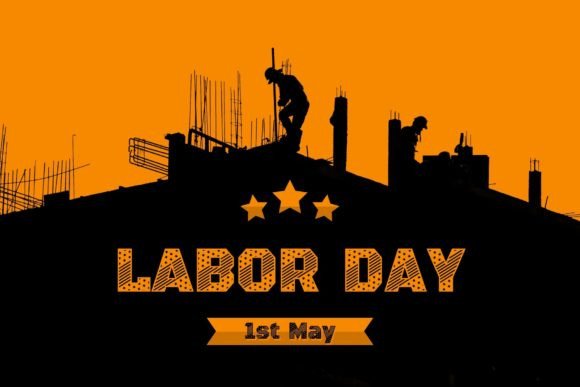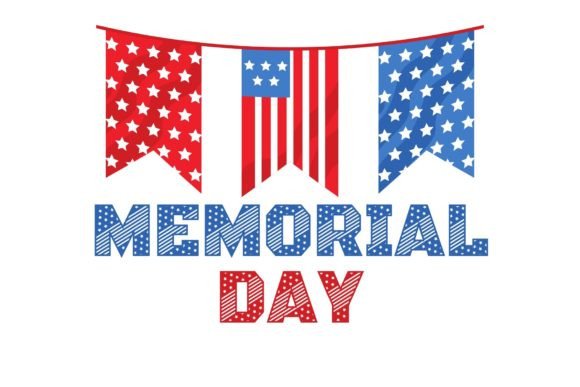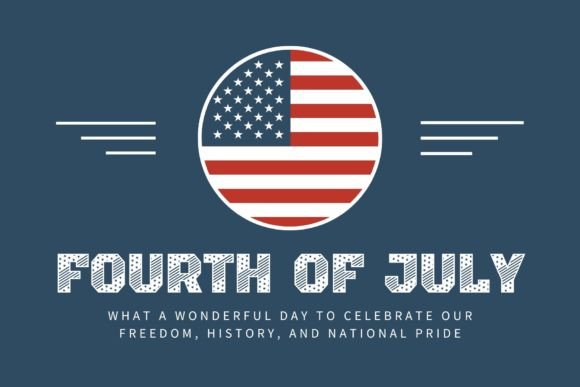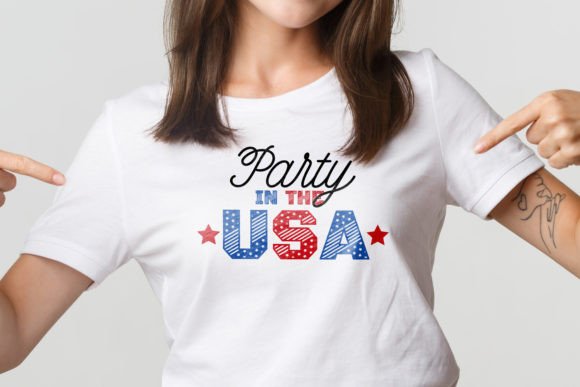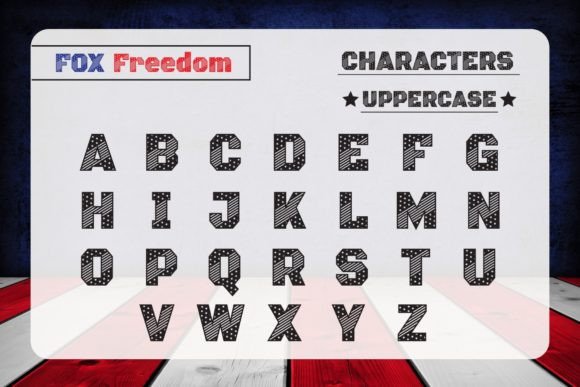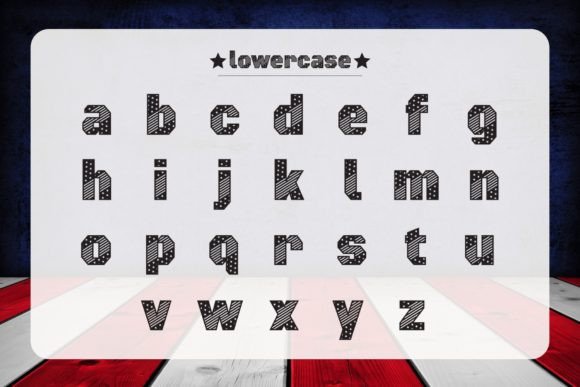
Introducing Fox Freedom Font: A Star-Spangled Celebration of American Culture
I’ll never forget the time I was working on a design project for a client’s Independence Day celebration. I had all the elements ready – the stars, the stripes, the fireworks – but I just couldn’t find the perfect font to tie everything together. That was until I stumbled upon the Fox Freedom Font. With its unique stars and stripes pattern in the letters, this decorative font was exactly what I needed to bring my design to life.
So, what makes Fox Freedom Font so special? Here are a few things I love about it:
• ✨ Unique and eye-catching design: The stars and stripes pattern in the letters is unlike anything I’ve seen before. It’s perfect for making a statement and adding a touch of American culture to any design.
• ✅ Highly versatile: Whether you’re working on a project for Independence Day, Veterans Day, or Memorial Day, Fox Freedom Font is the perfect choice. It’s also great for designs that celebrate American history or culture.
Of course, no font is perfect, and Fox Freedom Font does have a few quirks:
• 🤔 Limited use cases: While Fox Freedom Font is perfect for celebrating American culture, it may not be the best choice for more formal or professional designs.
• ⚠️ Requires OpenType features: To get the most out of Fox Freedom Font, you’ll need to use OpenType features, which can be a bit tricky if you’re not familiar with them.
The Story Behind Fox Freedom Font
Fox Freedom Font was designed by a team of creatives who wanted to create a font that celebrated American culture and patriotism. Inspired by the stars and stripes of the American flag, they created a font that’s both unique and eye-catching. With its bold design and patriotic feel, Fox Freedom Font is the perfect choice for any design that needs a touch of American pride.
Q: What is Fox Freedom Font? A: Fox Freedom Font is a decorative font that has a stars and stripes pattern in the letters. It’s perfect for designs that celebrate American culture, history, or events like Independence Day.
Q: Does Fox Freedom Font support OpenType features? A: Yes! Fox Freedom Font supports OpenType features, including stylistic alternates and glyphs. This allows you to customize the font to fit your design needs.